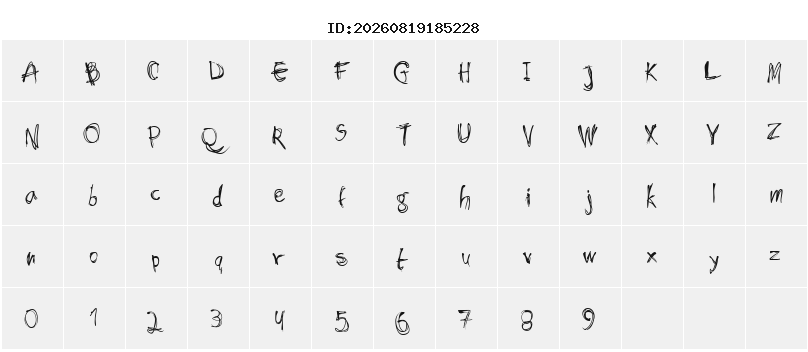
Shockheaded Preview
• Font Name: Shockheaded
• Designer: Meir Sadan
• Description: Yep. Another one of those contemporary grunge handjobs (and I do mean "contemporary"). I find it to be a mixture of Lovitz and Serena into something so off-mind, so impractical, that even the public access programs won't dare to use. I got the name from the book "Shockheaded Peter", which is quite a favorite of mine, especially because of all of these freaky drawings they have there. There's a british show that's based on that story, which I definately intend to go see.